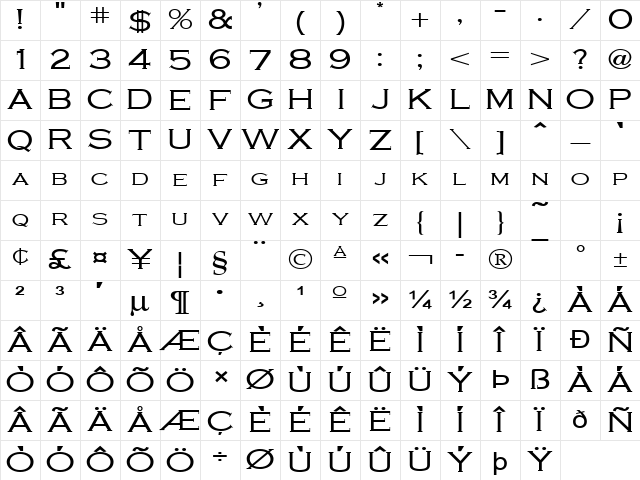
Cobalt-Wide Normal Free Font
Cobalt-Wide Normal
Cobalt-Wide Family
Complete Cobalt-Wide Normal glyph index. Displaying only characters natively supported by Cobalt-Wide Normal font.
Design Context for Cobalt-Wide
Cobalt-Wide is a composed and adaptable typeface that performs quietly and consistently across a wide range of design contexts.